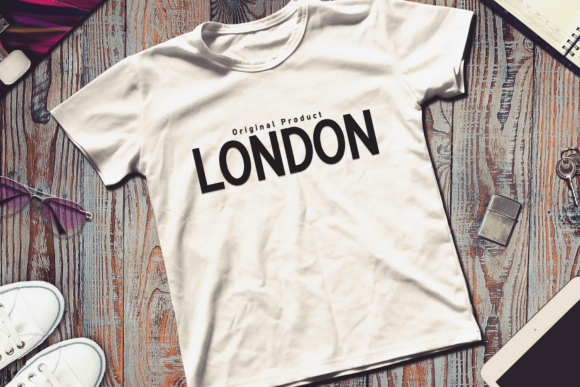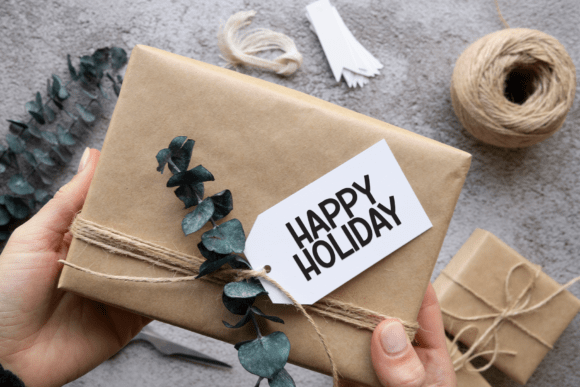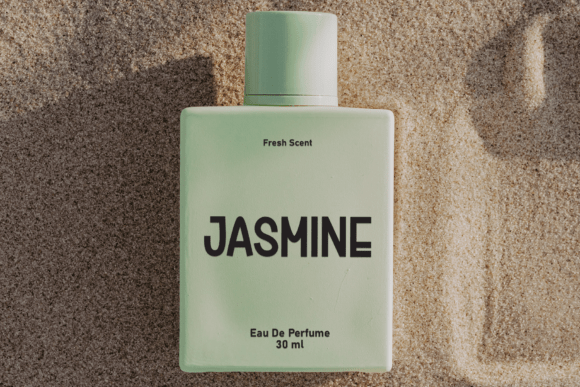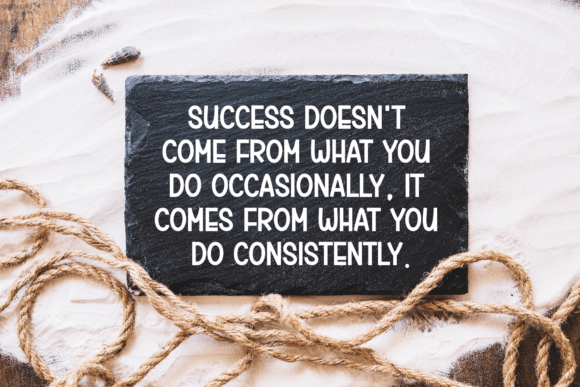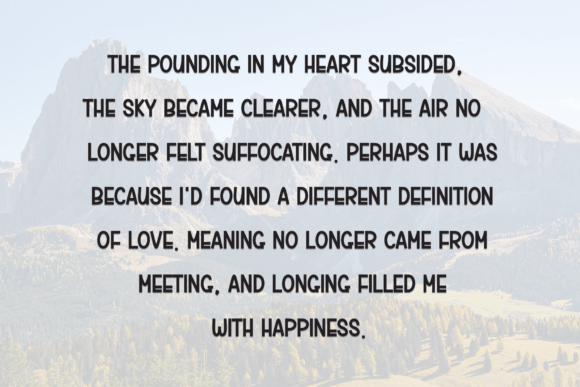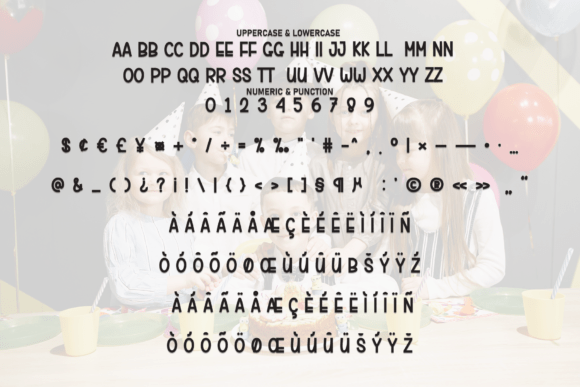
Introducing Birthday Kids Font: The Perfect Blend of Simplicity and Friendliness
Are you on the hunt for a font that embodies the spirit of celebration and joy? Look no further than the Birthday Kids Font, a casual and neat display font that is sure to bring a smile to your design projects. With its unique blend of simplicity and friendliness, this font is perfect for designers and crafters looking to add a warm and inviting touch to their work.
What Makes Birthday Kids Font So Special?
So, what sets Birthday Kids Font apart from other fonts out there? For starters, its clean lines and balanced letterforms give it a polished finish that is both modern and sophisticated. The subtle rounded edges add a touch of warmth and approachability, making it perfect for designs that require a friendly and inviting vibe.
Whether you’re working on a branding project, creating headlines, designing packaging, or crafting digital content, Birthday Kids Font is the perfect choice. Its versatile style and crisp structure make it easy to read and understand, ensuring that your message gets across with clarity and charm.
The Benefits of Using Birthday Kids Font
So, why should you choose Birthday Kids Font for your next design project? Here are just a few benefits of using this amazing font:
- Universal Appeal: The font’s clean and simple design makes it easy to read and understand, ensuring that your message gets across to your audience.
- Versatility: Birthday Kids Font is perfect for a wide range of design projects, from branding and headlines to packaging and digital content.
- Warm and Inviting: The font’s subtle rounded edges and balanced letterforms give it a warm and inviting vibe that’s perfect for designs that require a friendly touch.
- Modern and Sophisticated: The font’s clean lines and polished finish make it perfect for designs that require a modern and sophisticated look.
How to Use Birthday Kids Font in Your Design Projects
Using Birthday Kids Font in your design projects is easy. Here are a few tips to get you started:
- Pair it with Other Fonts: Birthday Kids Font pairs well with other fonts, making it easy to create stunning font combinations that add depth and interest to your designs.
- Experiment with Colors: The font’s clean design makes it easy to use with a wide range of colors, so don’t be afraid to experiment and find the perfect color scheme for your design.
- Use it for Headlines and Titles: Birthday Kids Font is perfect for headlines and titles, where its clean lines and balanced letterforms can really shine.
Who is Birthday Kids Font For?
Birthday Kids Font is perfect for designers and crafters who want to add a warm and inviting touch to their designs. Whether you’re working on a branding project, creating digital content, or designing packaging, this font is sure to be a great choice.
Some examples of designers and crafters who may benefit from using Birthday Kids Font include:
- Graphic Designers: Birthday Kids Font is perfect for graphic designers who want to create stunning visuals that capture the essence of modern handwritten typography.
- Digital Artists: The font’s clean design and versatile style make it perfect for digital artists who want to add a touch of warmth and friendliness to their work.
- Crafters: Birthday Kids Font is perfect for crafters who want to create beautiful and eye-catching designs for their handmade products.
In conclusion, Birthday Kids Font is a casual and neat display font that combines simplicity with a friendly, approachable vibe. With its clean lines, balanced letterforms, and subtle rounded edges, it captures the essence of modern handwritten typography with a polished finish. Whether you’re working on a branding project, creating headlines, designing packaging, or crafting digital content, Birthday Kids Font is the perfect choice. So why wait? Download Birthday Kids Font today and start adding a warm and inviting touch to your designs!